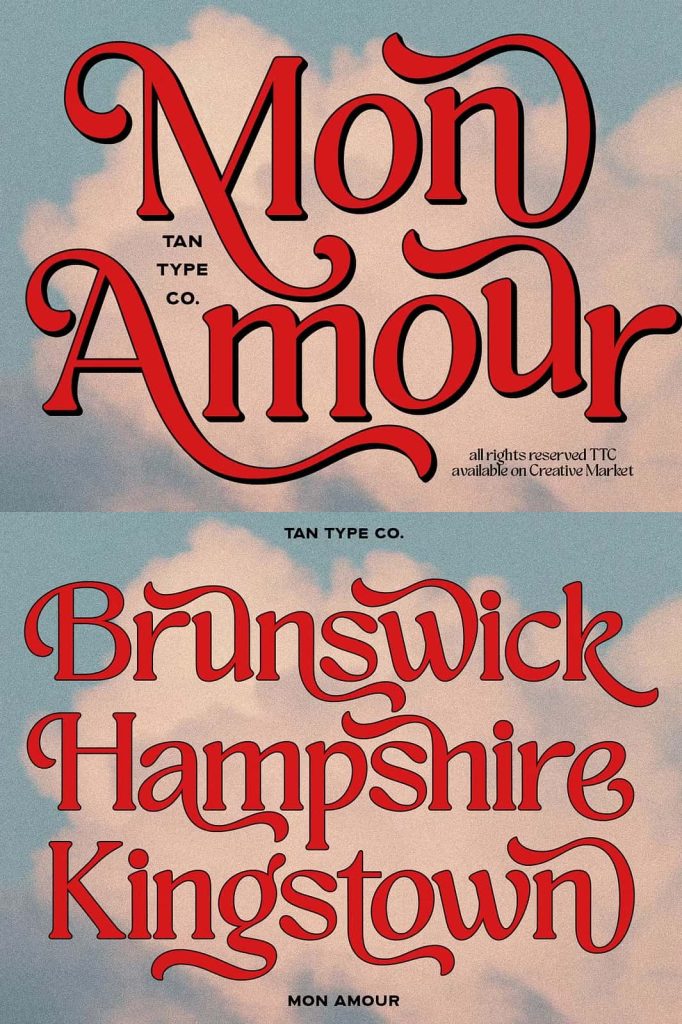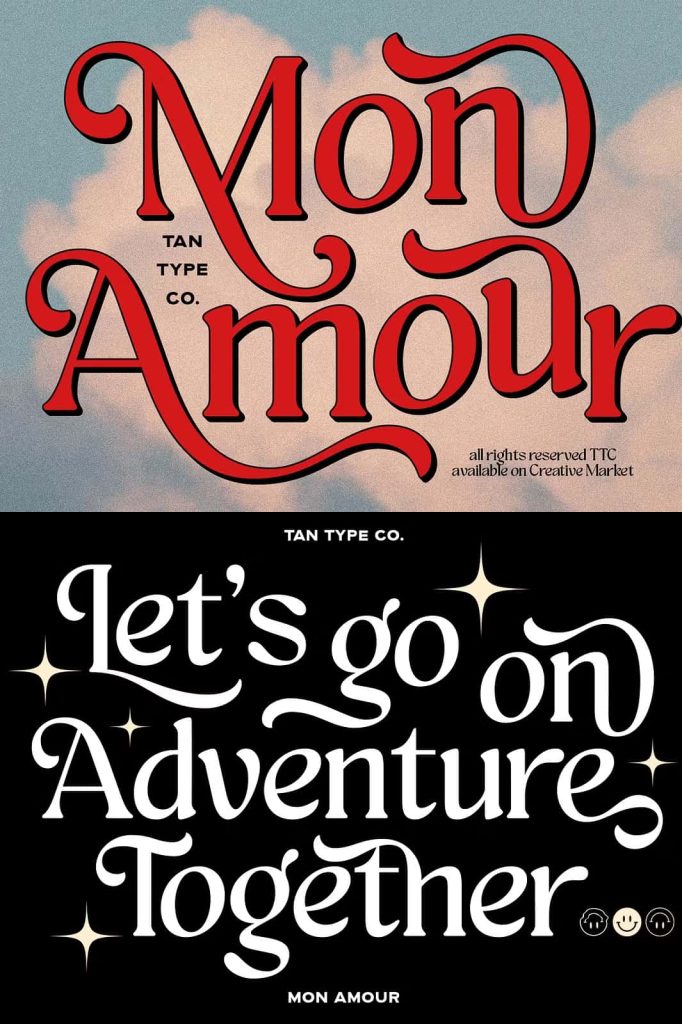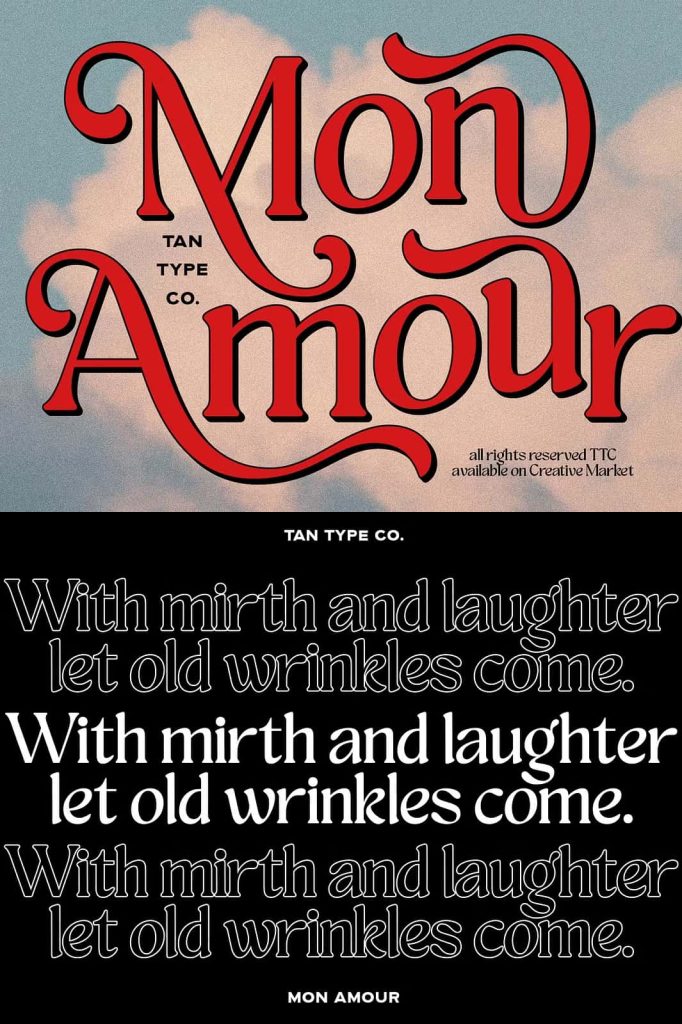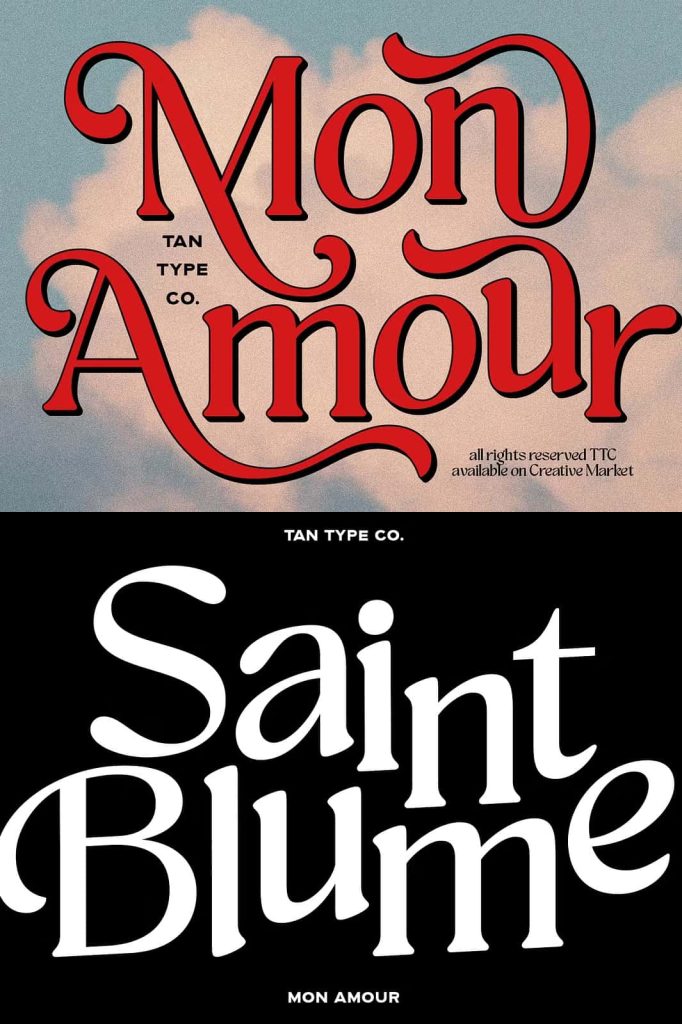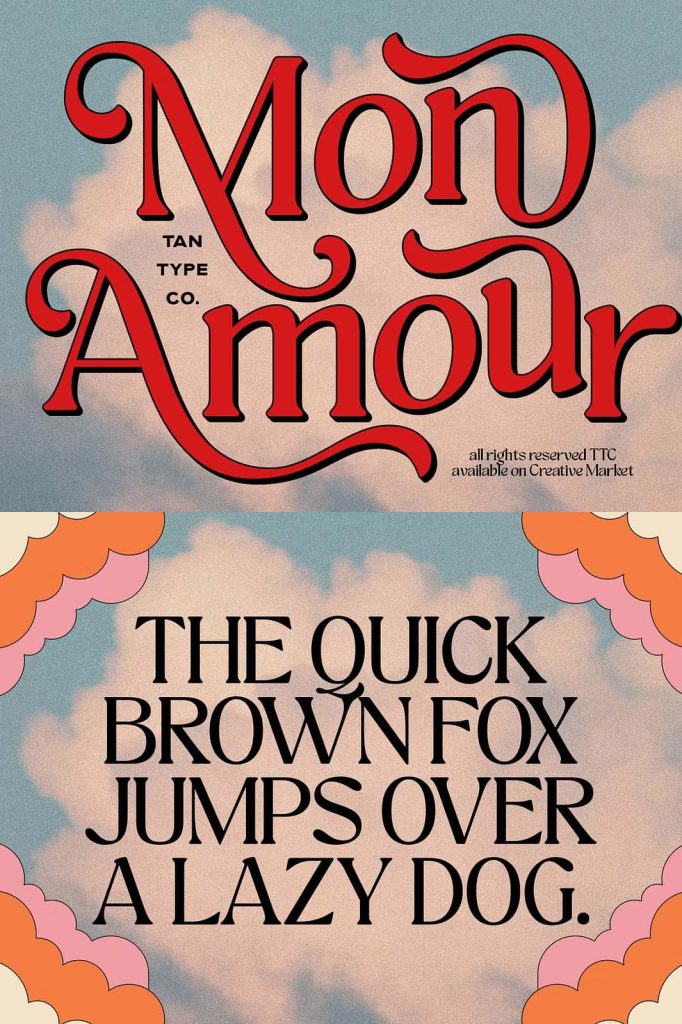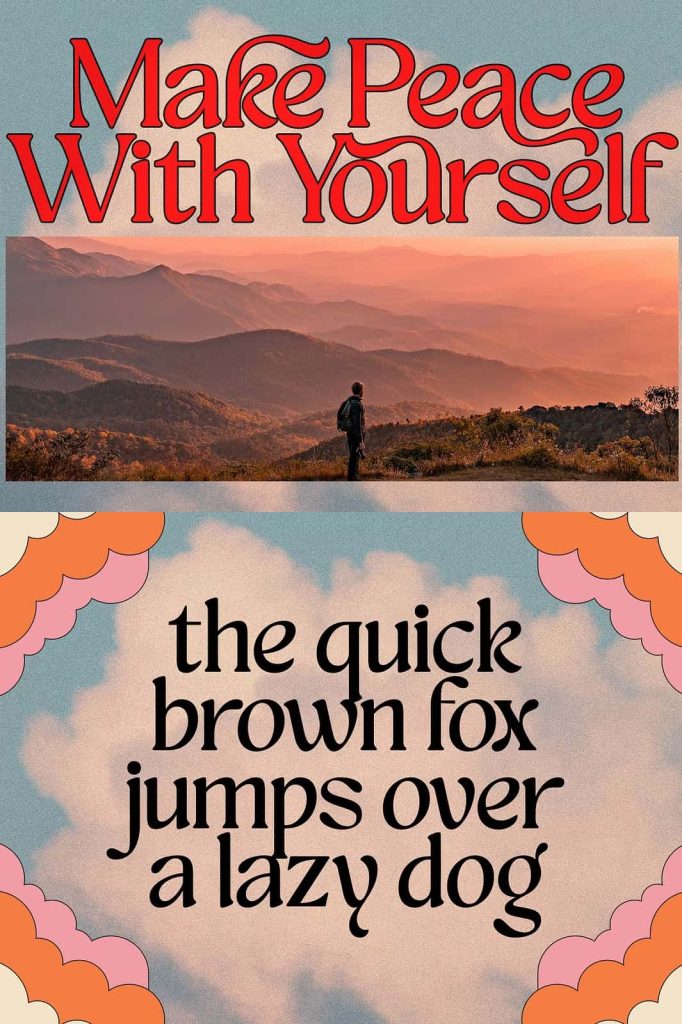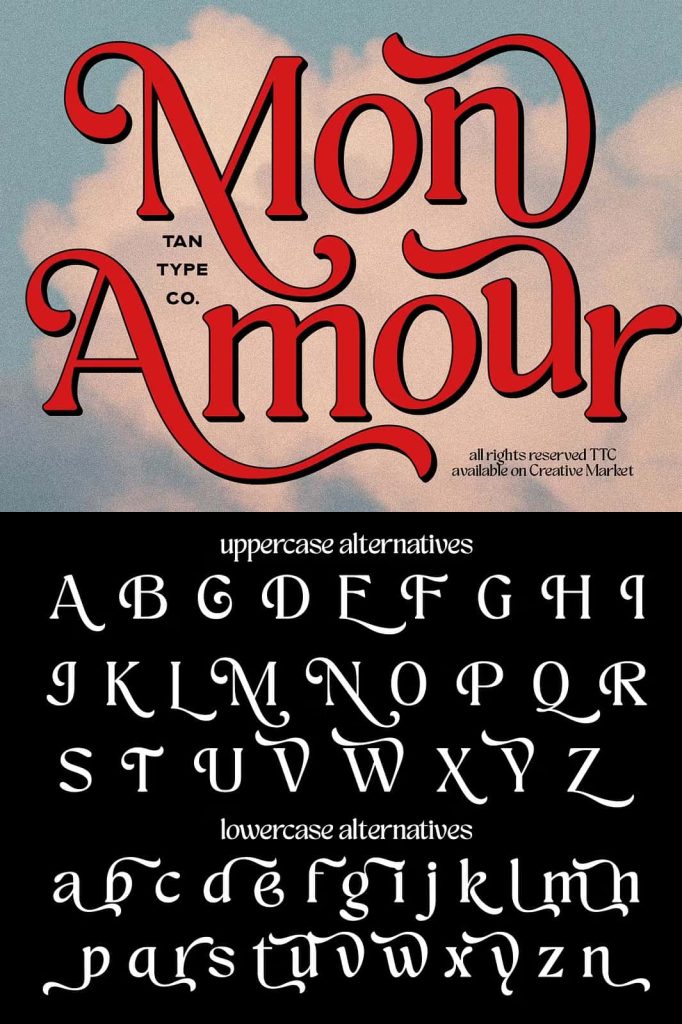
Mon Amour Retro Typeface
A Cheerful Typeface Inspired by the Charm of 70s Lettering
Mon Amour is a vibrant retro typeface that celebrates the joyful spirit of 1970s lettering. Designers often search for fonts that instantly add personality and nostalgic character to their projects, and Mon Amour delivers exactly that. With playful curves, smooth swirls, and soft rounded shapes, this typeface captures the warmth and optimism of vintage design while remaining versatile enough for modern creative work.
The design draws inspiration from classic retro signage, vintage posters, and expressive lettering styles that defined the golden era of graphic design in the 1970s. Each character flows naturally into the next, creating a rhythmic visual harmony that makes words feel lively and inviting. Mon Amour does not simply imitate retro aesthetics—it reinterprets them with fresh energy so designers can easily incorporate nostalgic charm into contemporary branding and editorial layouts.
Playful Curves and Expressive Letterforms
One of the defining features of Mon Amour is its beautifully curved structure. The letters move with a graceful rhythm, producing a sense of motion and friendliness. The strokes feel soft and organic, which allows the typeface to communicate warmth and approachability in any design environment.
Designers often struggle to find a retro typeface that balances personality with readability. Mon Amour solves that challenge by maintaining clear letterforms while still embracing decorative elements. Its rounded shapes and flowing style help headlines stand out without becoming difficult to read. As a result, the font performs exceptionally well in large display sizes where its details can truly shine.
Retro Details That Create Personality
Every character in Mon Amour features subtle design decisions that enhance its nostalgic appeal. Curved terminals, smooth transitions, and charming alternates give the typeface a hand-crafted feel. These details echo the expressive lettering techniques that were widely used in vintage advertising, packaging, and magazine covers.
The flowing alternates allow designers to experiment with creative word compositions. By switching between alternate characters, you can craft unique lettering combinations that feel custom-made for each project. This flexibility adds an extra layer of creativity that modern designers appreciate when building strong visual identities.
Perfect for Vintage Branding and Creative Projects
Mon Amour adapts easily to a wide variety of design projects. Its nostalgic tone makes it a natural choice for vintage branding, retro-inspired packaging, and bold poster designs. At the same time, the friendly shapes and smooth strokes make it equally suitable for lifestyle brands, cafés, fashion labels, and boutique businesses.
When used in branding projects, Mon Amour immediately communicates personality. The playful style feels welcoming and expressive, helping brands create an emotional connection with their audience. Designers can use it for logos, packaging labels, social media graphics, and promotional materials that require a memorable visual voice.
Ideal Uses for Mon Amour
Because of its expressive personality, Mon Amour performs best in display environments where its curves and decorative elements remain clearly visible. Designers often choose this font for projects such as:
• Vintage and retro branding projects
• Product packaging and label design
• Poster and promotional artwork
• Magazine and editorial headlines
• Creative social media graphics
• Fashion and lifestyle branding
These applications allow the font’s playful energy to take center stage, helping designs feel distinctive and memorable.
A Typeface That Blends Nostalgia With Modern Creativity
Many retro fonts lean heavily on nostalgia but struggle to integrate smoothly into modern design systems. Mon Amour avoids that limitation by balancing vintage inspiration with contemporary usability. The letterforms feel expressive without appearing outdated, allowing designers to create projects that feel both timeless and fresh.
This balance makes Mon Amour especially useful for creative professionals who want to explore retro aesthetics without sacrificing clarity or versatility. Whether you design posters, brand identities, or editorial layouts, the typeface offers enough character to transform simple text into a strong visual element.
Create Warm, Friendly, and Memorable Designs
Typography plays a major role in shaping the emotional tone of a design. Mon Amour helps designers communicate joy, friendliness, and creativity through its lively letterforms. The smooth curves and playful swashes give each word a sense of movement, which naturally attracts attention and invites readers to engage with the content.
If your project requires a retro atmosphere that feels cheerful rather than rigid, Mon Amour provides the perfect typographic voice. Its nostalgic charm, balanced readability, and expressive alternates empower designers to craft unique compositions that stand out across branding, packaging, posters, and editorial design.
Mon Amour proves that retro typography can remain relevant in modern design. By combining the playful elegance of 70s lettering with contemporary usability, this typeface becomes a powerful tool for designers who want to bring warmth, personality, and vintage flair into their creative work.